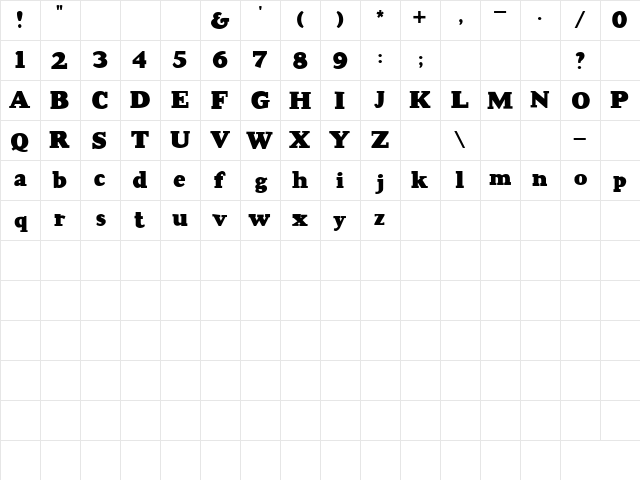
2Peas Essential Regular
Design Context for 2Peas Essential Typeface
2Peas Essential is a composed and adaptable typeface that performs quietly and consistently across a wide range of design contexts.